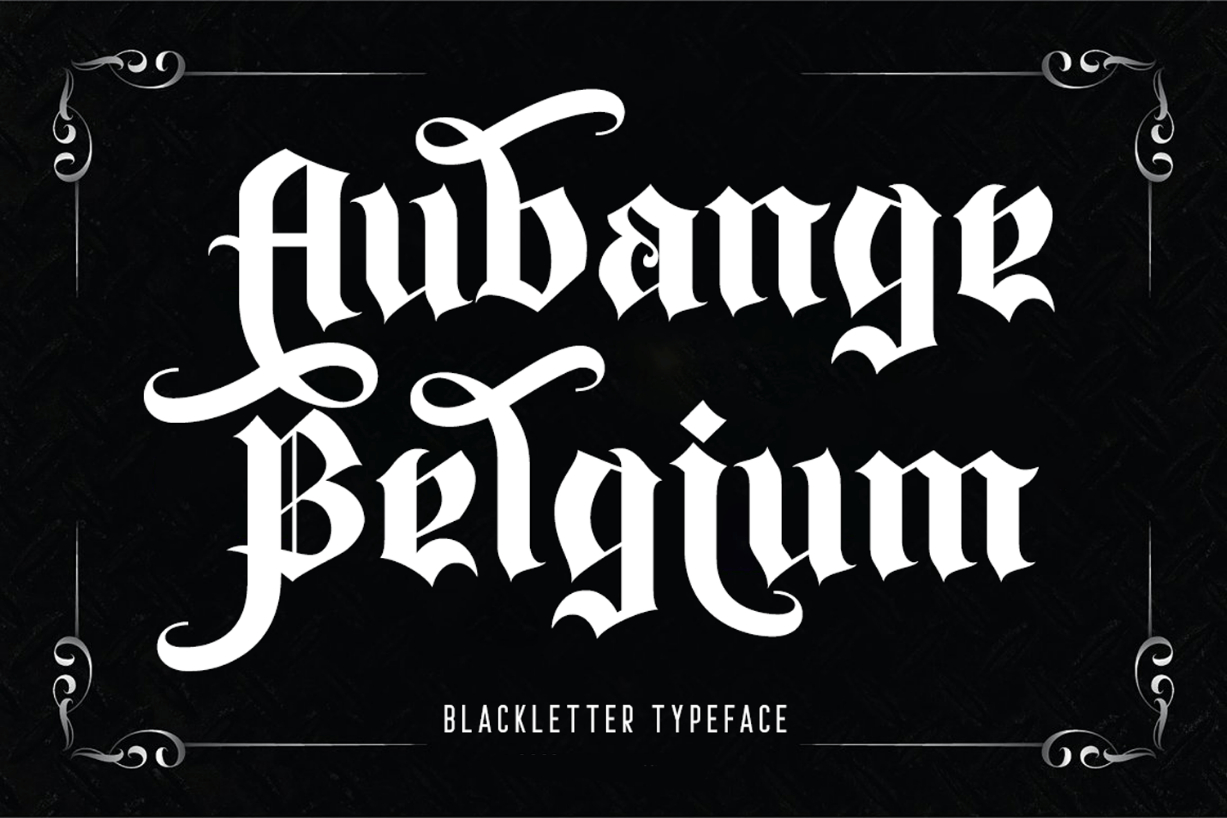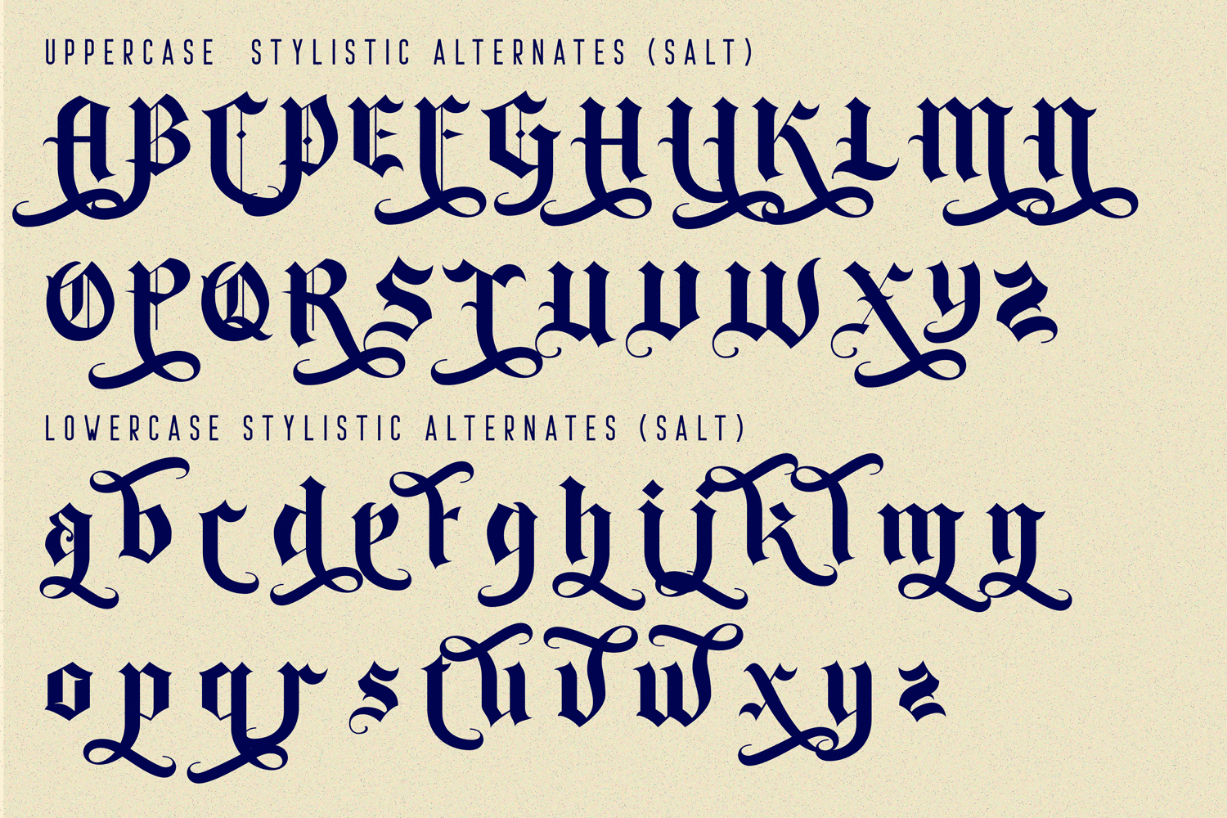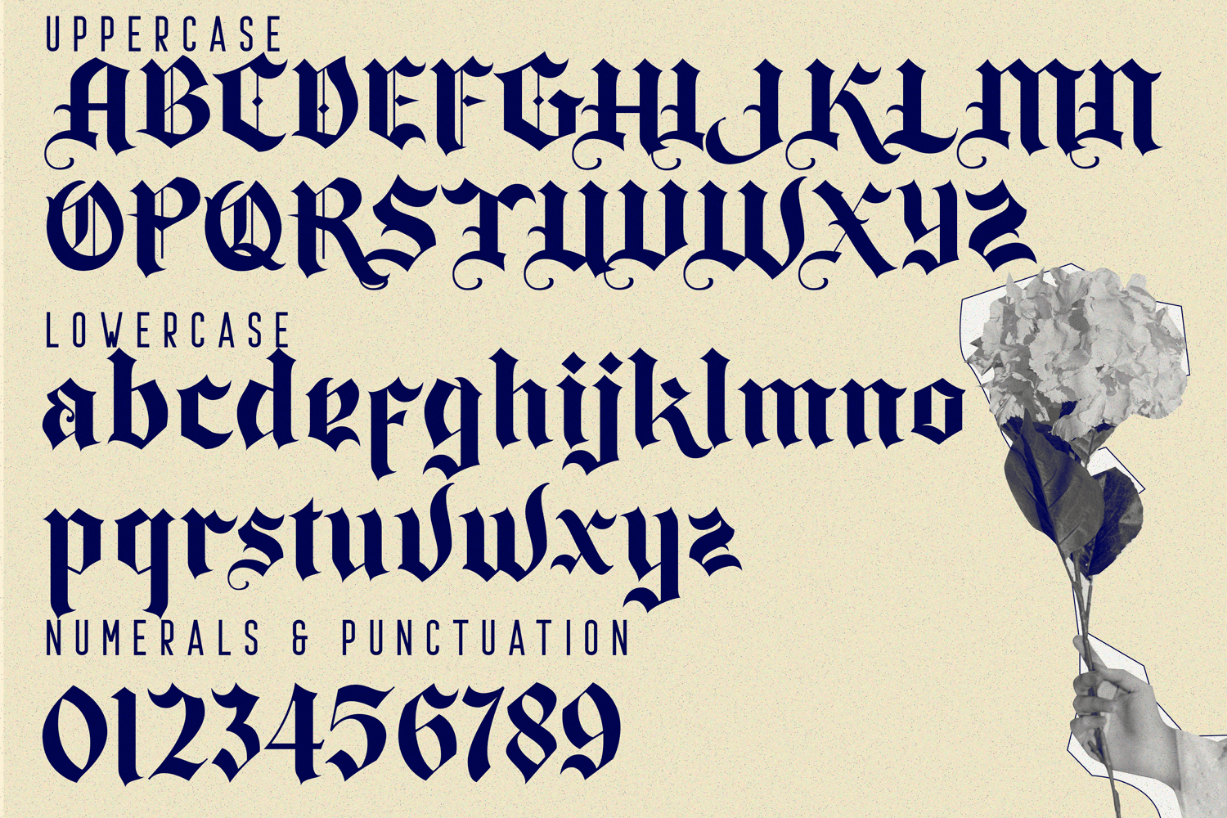
Aubange Belgium Font
About Aubange Belgium Font
Aubange Belgium is the transformation of the classic blackletter font into the modern world. The blackletter character is very strong and prominent and it will be the right choice for any project that needs a powerful touch.